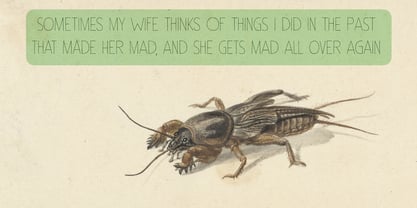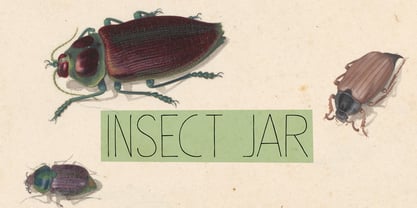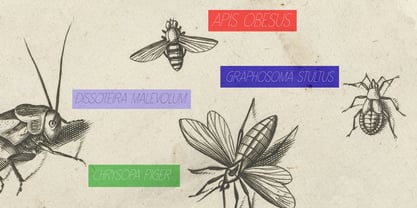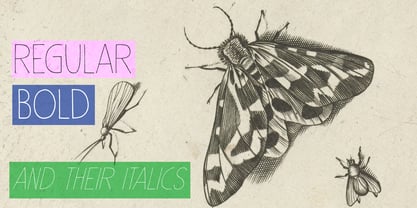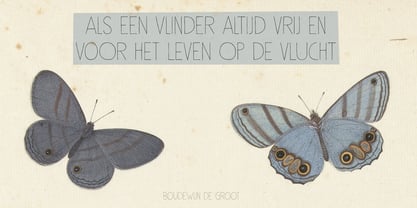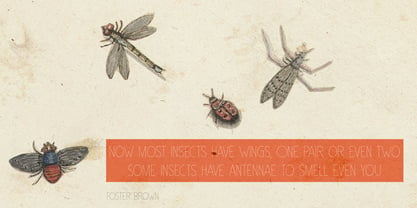
Insect Jar Pro
by Hanoded
The Insect Jar Pro Font Family was designed by David Kerkhoff and published by Hanoded. Insect Jar Pro contains 4 styles and family package options. More about this family
My son Boris has an insect jar; one of those plastic containers with a magnifying glass lid. He and his bestie often run around in the garden looking for critters. They then place them inside the jar, together with some green leaves and forget all about them. I always feel sorry for these insects and help them escape.
Insect Jar is a really thin, all caps font based on a really old font of mine called Sleepy Time. It comes with extensive language support, a bold version and an ant.
Insect Jar Pro
Hanoded is run by Dutchman David Kerkhoff. His fonts are a mishmash of styles, as he just creates whatever pops into his head. You will find a lot of brush fonts in his collection, as his favourite tools are brushes and Chinese ink, with cartoon style fonts and script fonts complementing his repertoire. Aside from making fonts, David occasionally guides tours in far-flung places, renovates his '30's house and tries reasoning with his wife and (teenage) kids. Not an easy task!